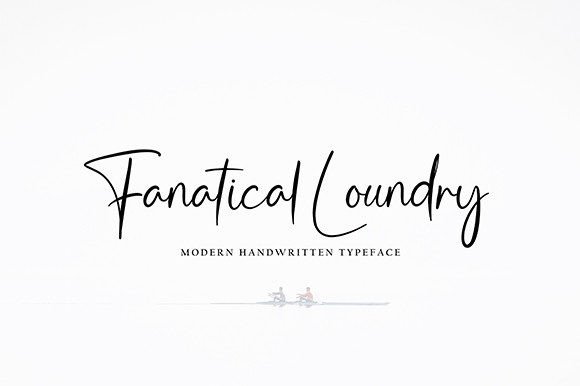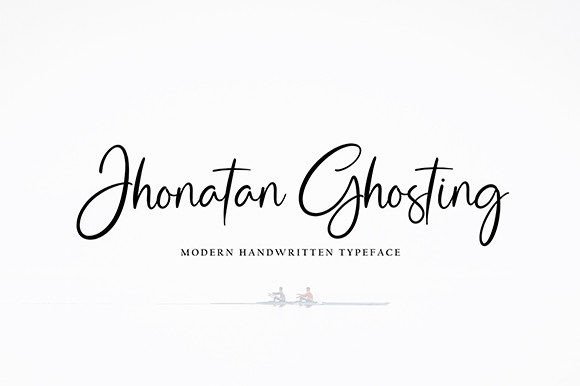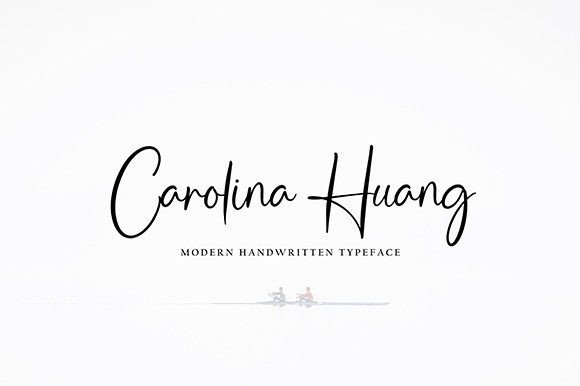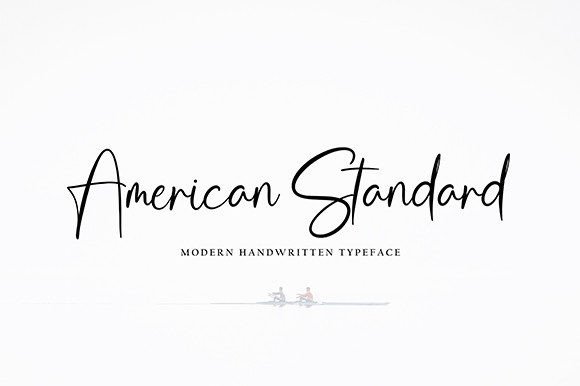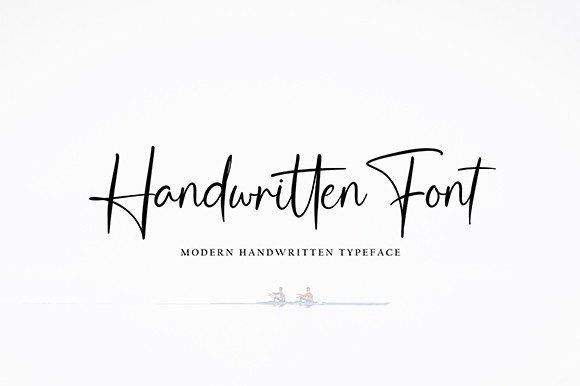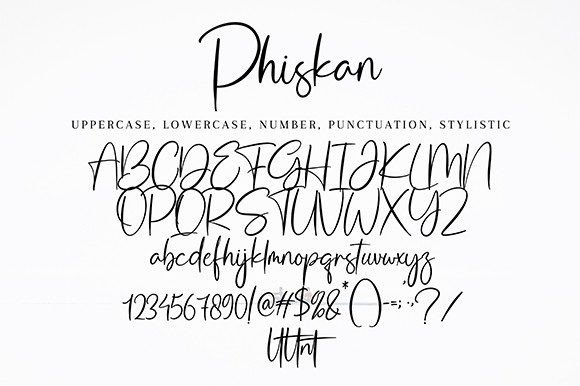
About Phiskan Font
Phiskan is an exceptionally stylish handwritten script font that effortlessly captures the essence of authenticity while maintaining a comfortable and informal ambiance. This versatile typeface is a must-have addition to your font library, allowing you to infuse your creative projects with a touch of elegance and personality.
The charm of Phiskan lies in its handcrafted design, which lends a unique and personal touch to any project. Its graceful strokes and fluid curves evoke a sense of genuine, human expression, making it an ideal choice for a wide range of design applications.
One of the standout features of Phiskan is its adaptability. Whether you’re designing invitations for a wedding, crafting a logo for a boutique, or working on a branding project for a coffee shop, this font will rise to the occasion with unmatched finesse. Its innate ability to convey both style and warmth ensures that your designs will always strike the right chord with your audience.
Phiskan’s versatility doesn’t stop there; it’s equally at home in both print and digital media. From posters and packaging to websites and social media graphics, this font shines brightly in every context. Its legibility ensures that your message is conveyed clearly and effectively, while its inherent charm adds a layer of visual appeal that is hard to match.
Moreover, Phiskan comes with a wide range of ligatures and alternate characters, providing you with even more design options. You can easily customize and fine-tune your text to achieve the exact look and feel you desire, making it a valuable tool for creative professionals and designers.
Incorporating Phiskan into your projects is a decision you can make with confidence. It elevates your designs to a level of sophistication that leaves a lasting impression. Whether you’re an experienced designer or just starting on your creative journey, this font will become an indispensable part of your toolkit, allowing you to consistently produce stunning and memorable designs.
In conclusion, Phiskan is more than just a font; it’s a creative companion that empowers you to bring your visions to life with a touch of style and authenticity. Make it an essential part of your design arsenal and watch as it transforms your concepts into stunning, unforgettable works of art.